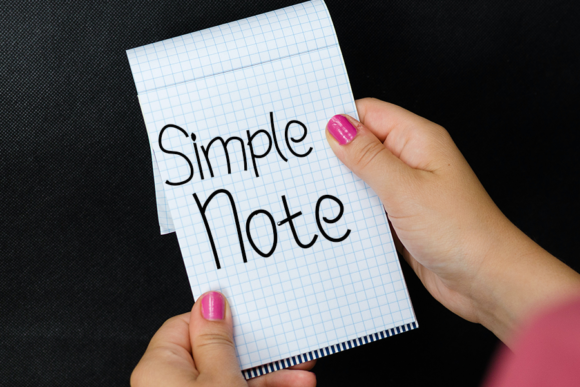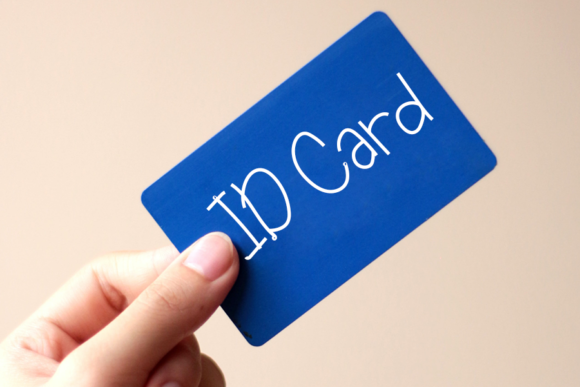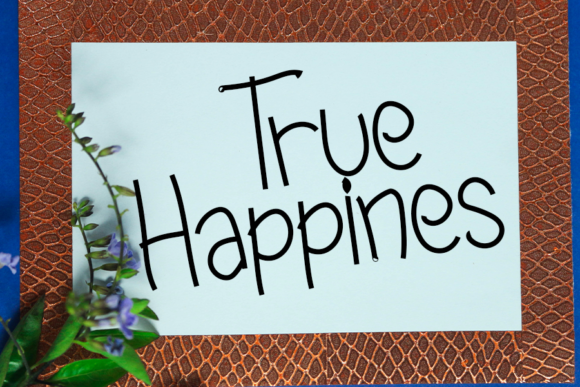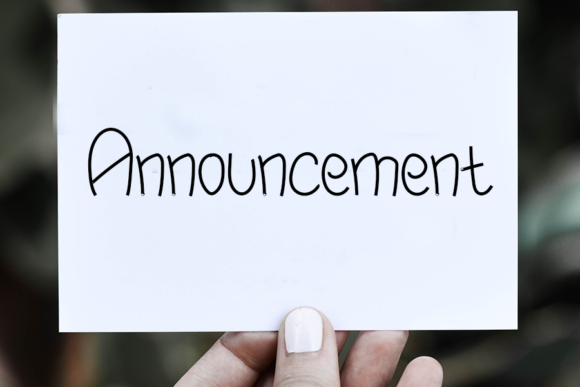
About Simple Note Font
Simple Note is a sweet handwritten font with a playful baseline and a sense of innocence in each glyph. This font can be used for children’s crafts, projects, or any design that needs a personal touch!